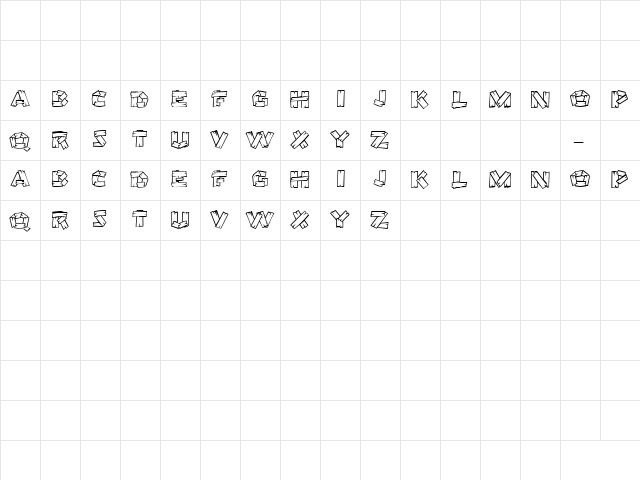
GE Tree House Regular
Design Context for GE Tree House Typeface
GE Tree House is a composed and adaptable typeface that performs quietly and consistently across a wide range of design contexts.